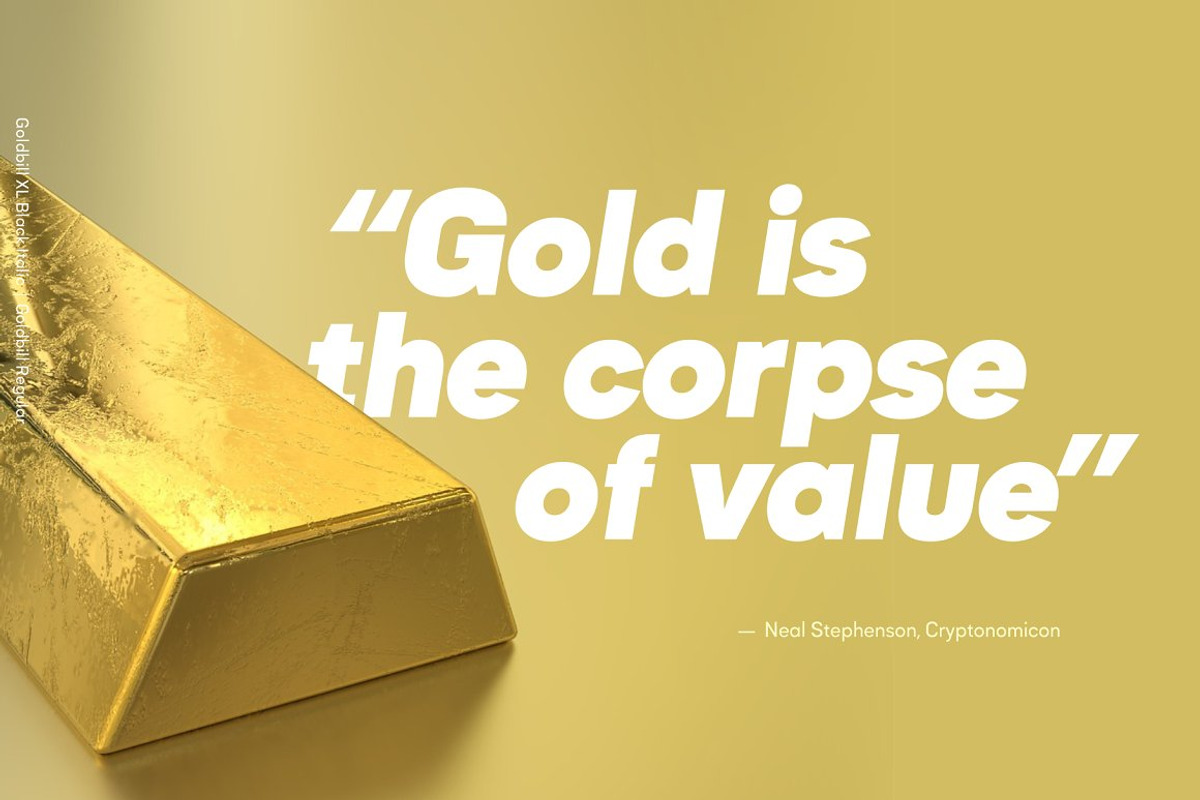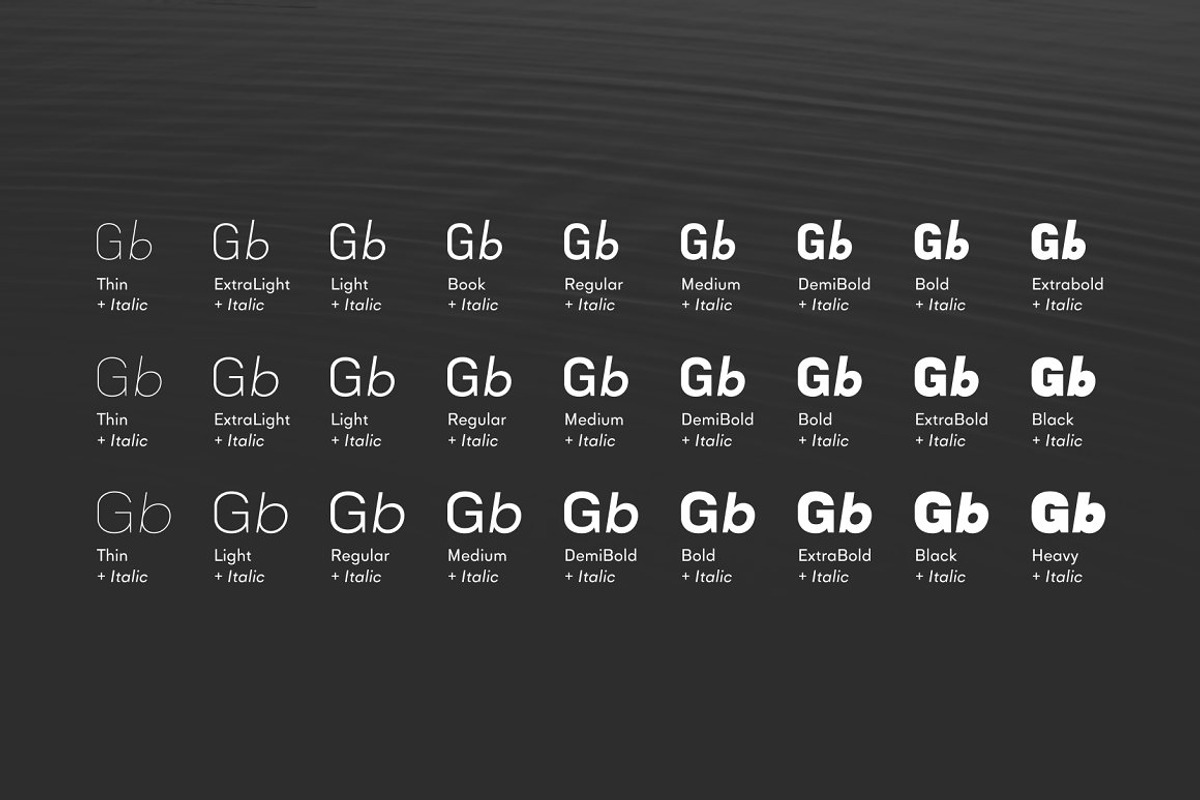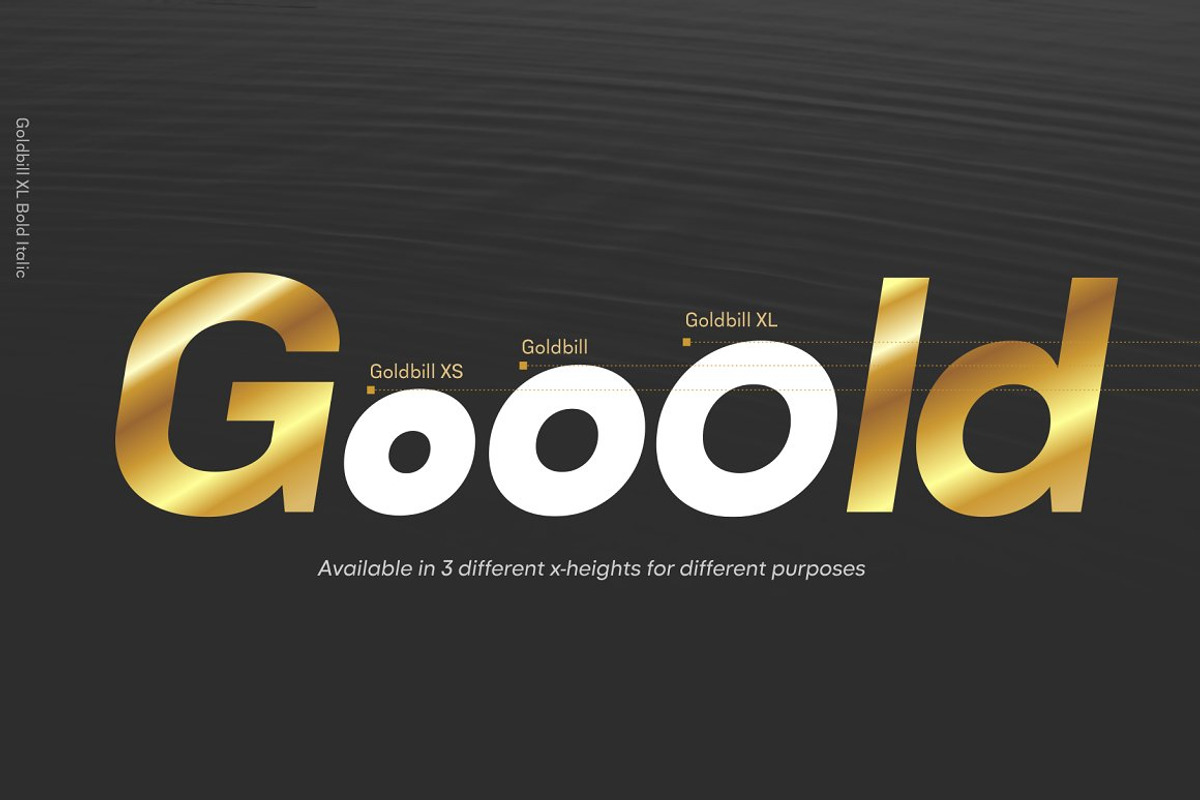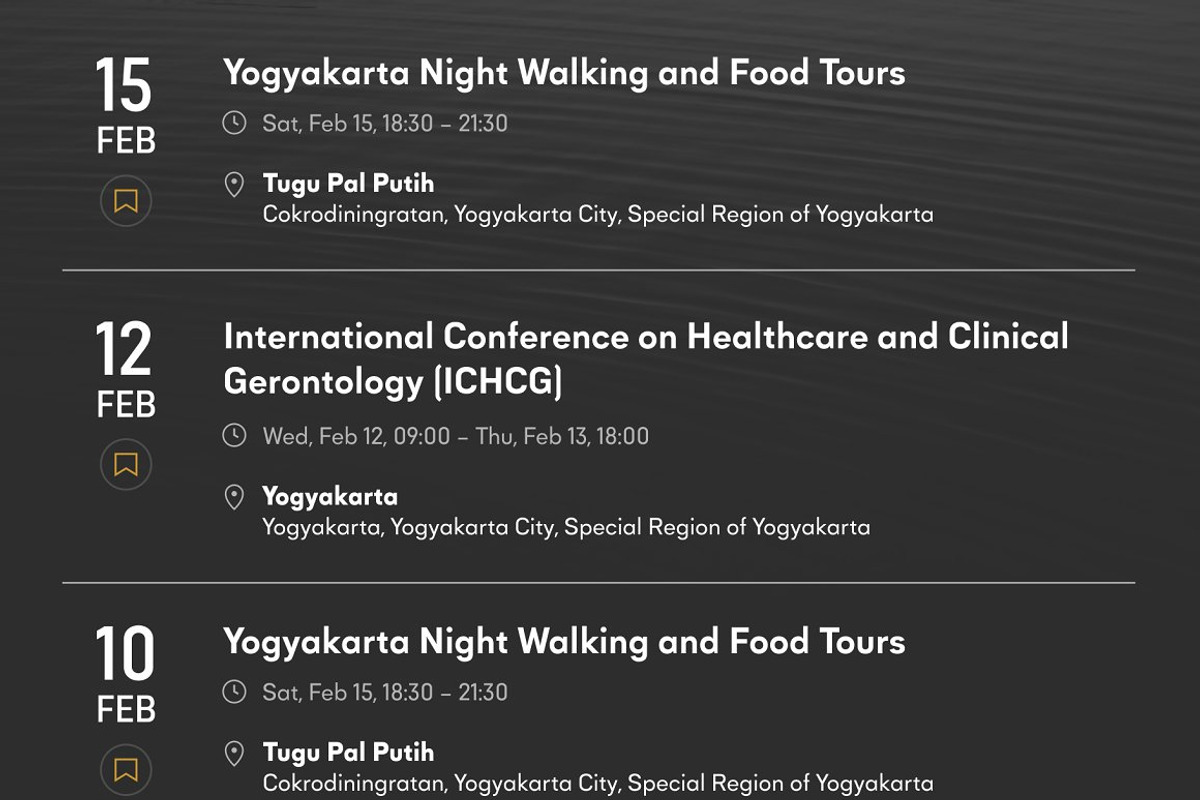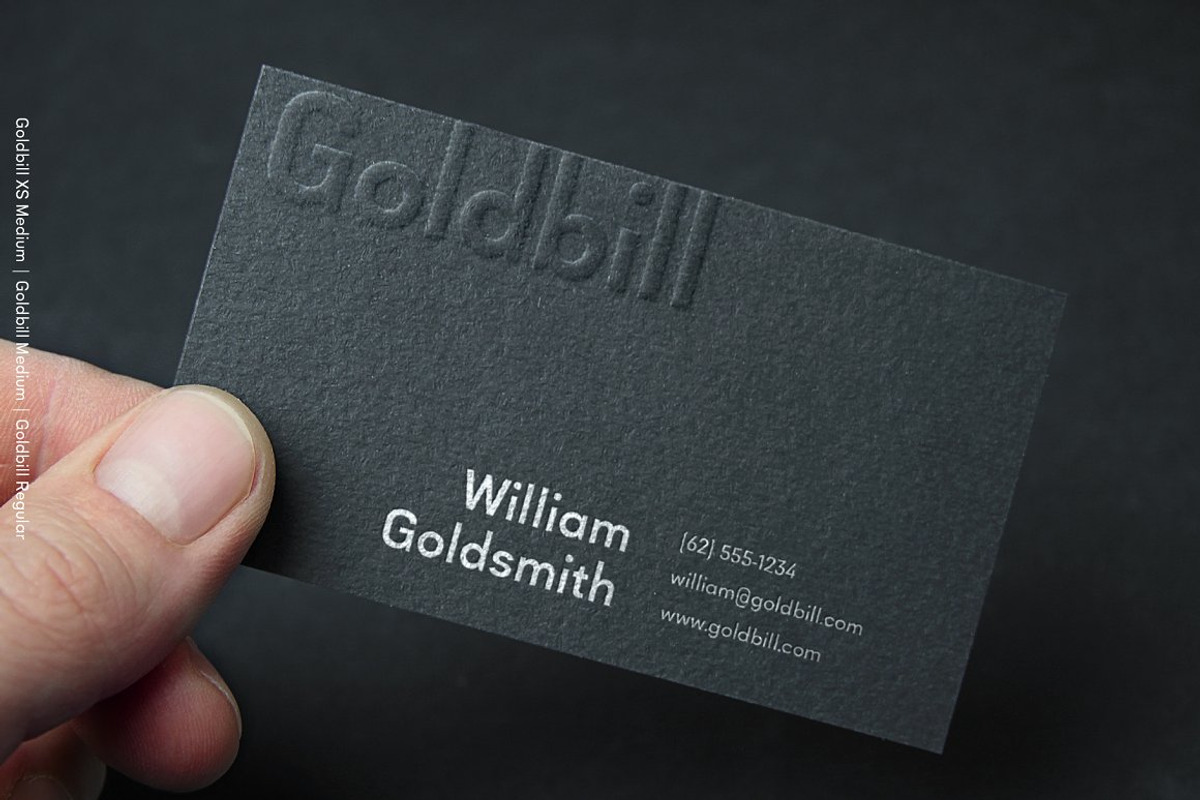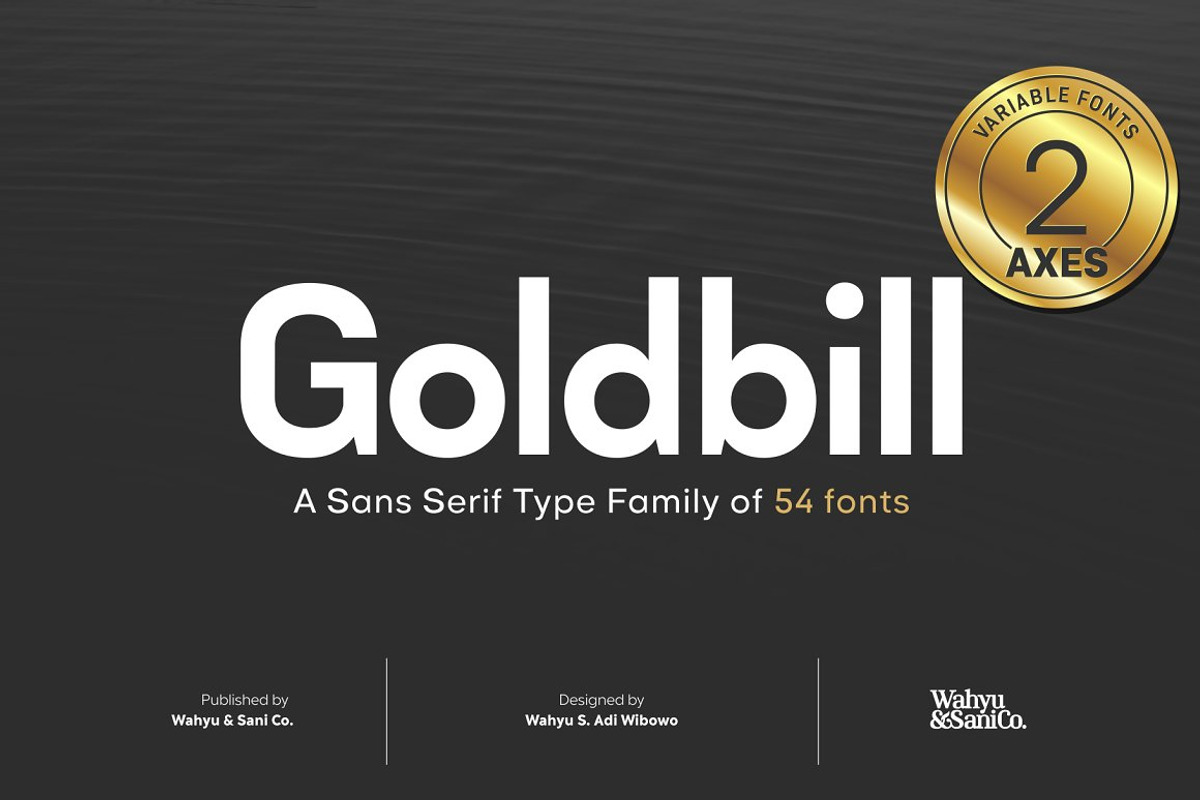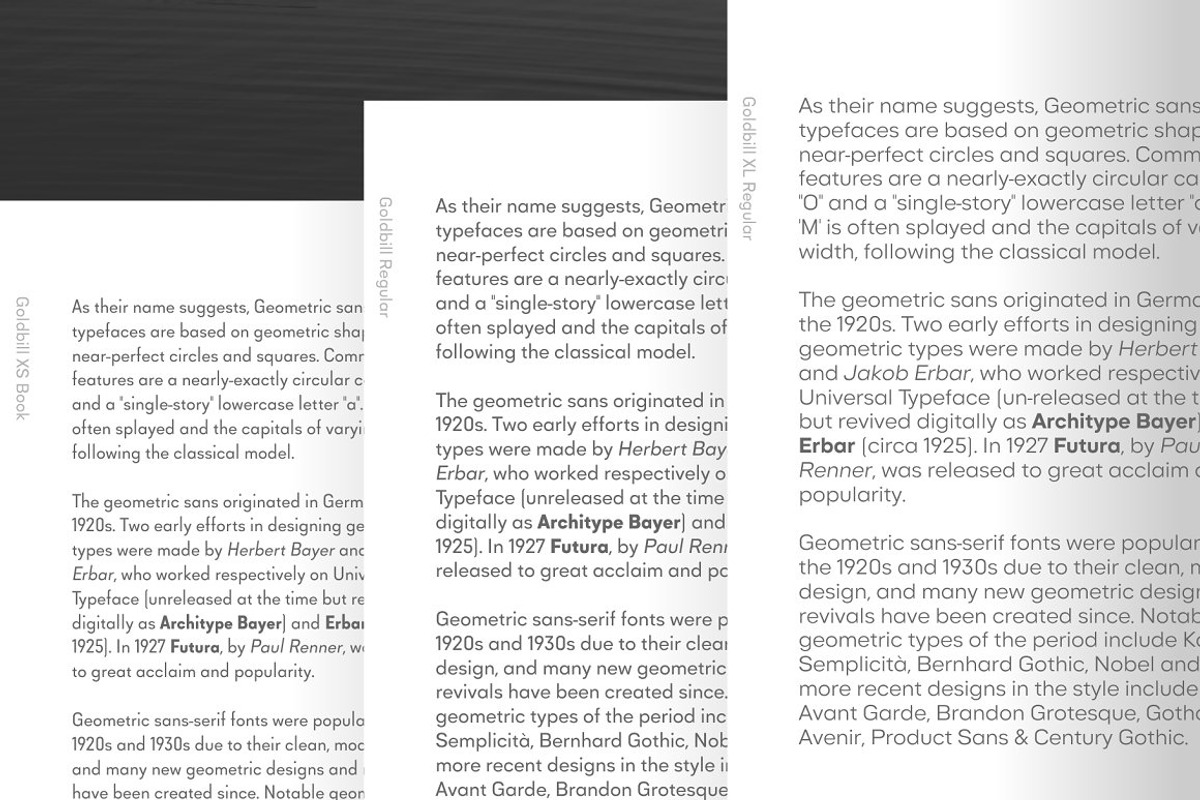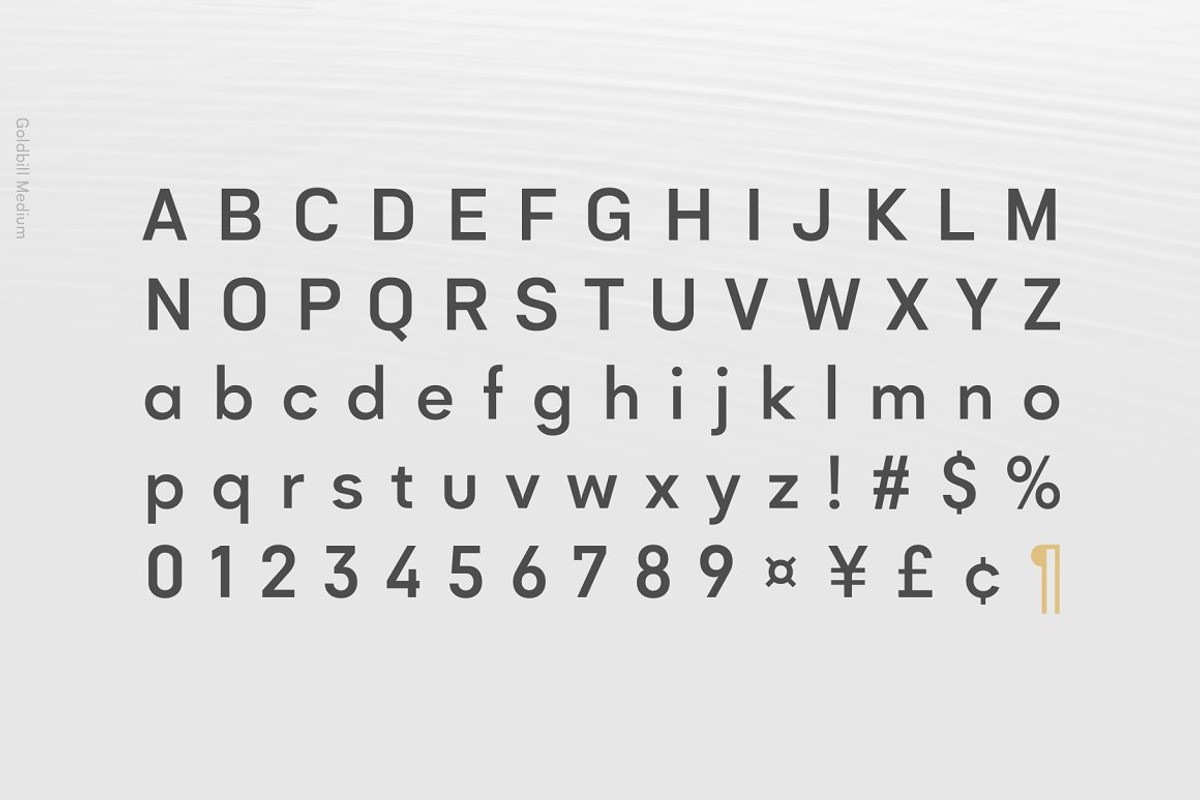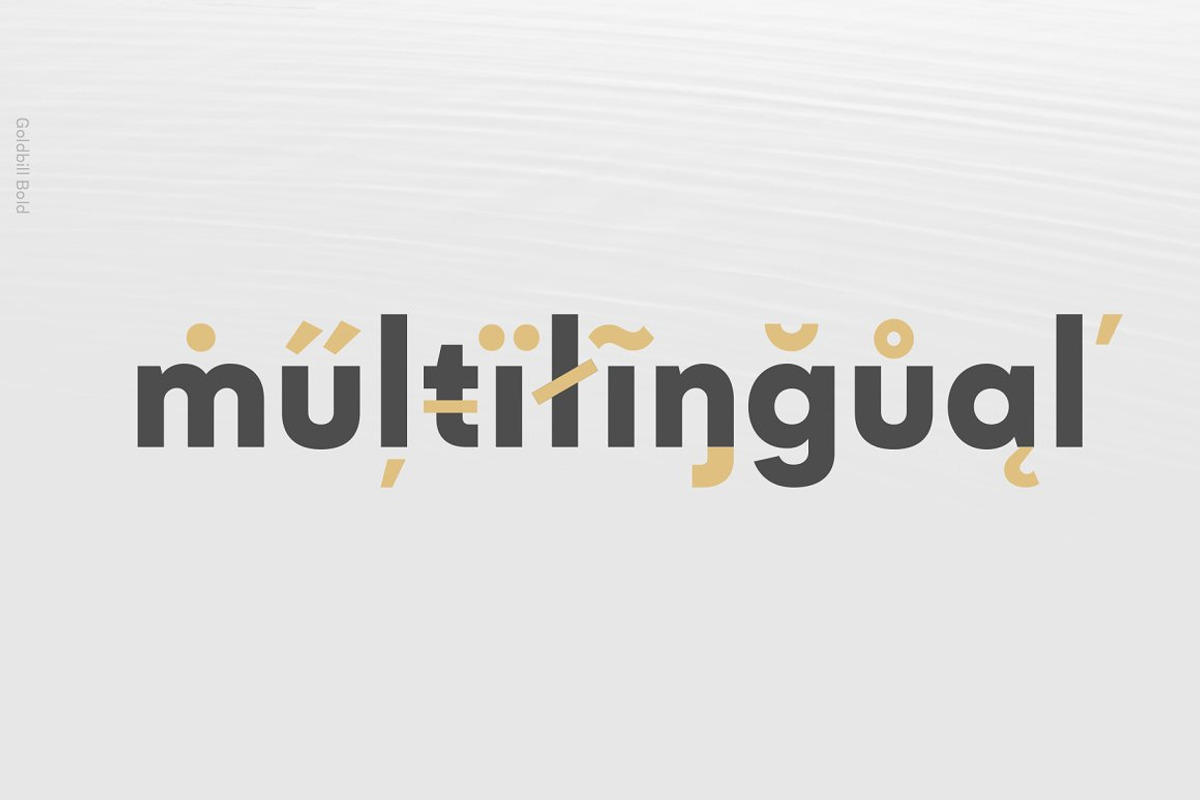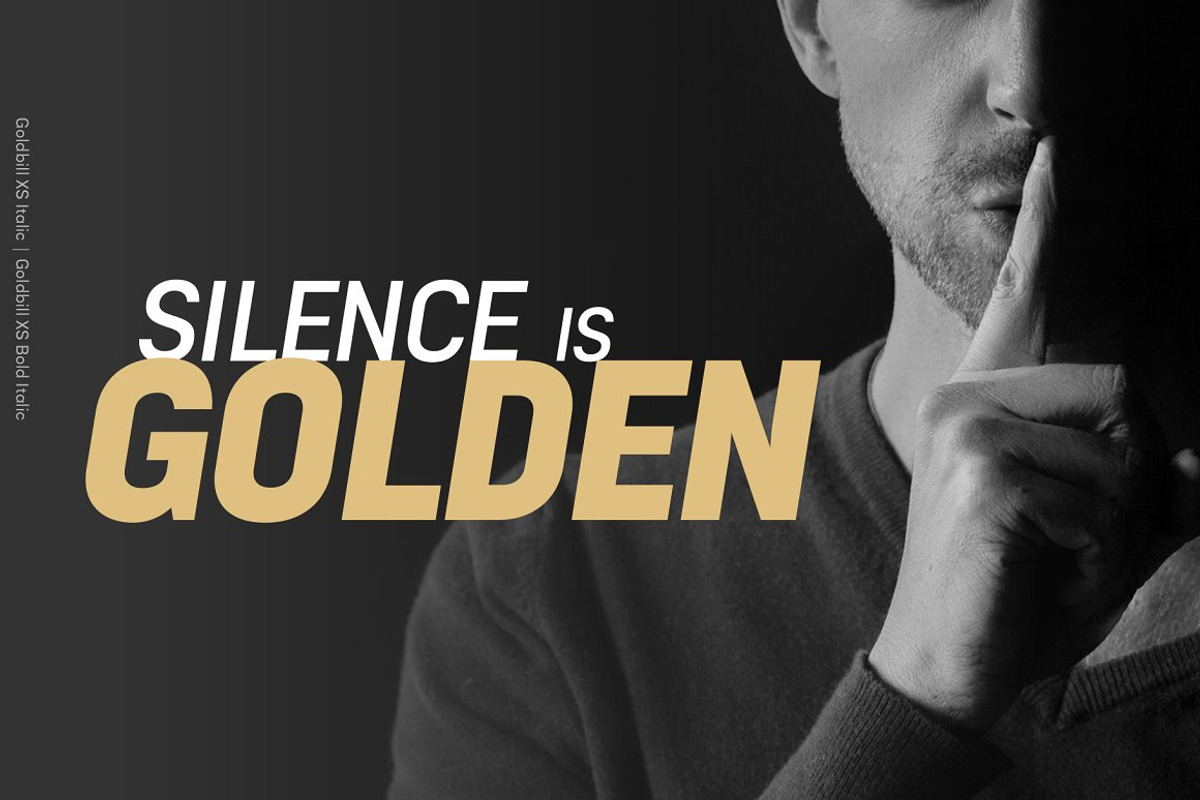
Goldbill | Geometric Sans Family
Goldbill is modern sans serif typeface which designed based on geometric shapes. It is not just another geometric typeface, the uppercase letters were designed to have more squared form instead of circular and the lowercase retain the circular looks. It was designed with 2 axes variable; x-height and weight that generates 54 fonts with 3 different x-heights and 9 different weights.
The basic version of Goldbill is the best for text, while the Goldbill XS with the narrowest x-height is ideal for display text, logo, etc, and the one with the largest x-height, Goldbill XL would be good for heading, shorter paragraph text or web font. Goldbill type family with its 3 different x-heights would be a great type system for any modern graphic design and modern typographic work.
Each font has 470+ glyphs which covers Western and Eastern Europe Latin based languages, and also equipped with some OpenType Layout Features; Access All Alternates, Denominators, Fractions, Kerning, Standard Ligatures, Localized Forms, Numerators, Ordinals, Scientific Inferiors, Subscript, Superscript, and Tabular Figures.